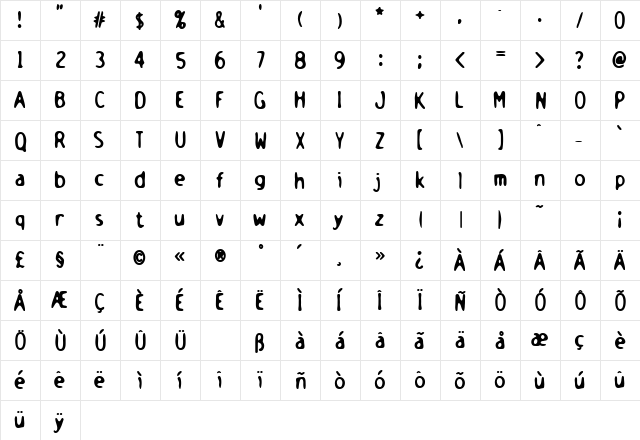
HolsteinBoldkern Regular
Design Context for HolsteinBoldkern Typeface
HolsteinBoldkern offers clean, dependable letterforms without strong stylistic allegiance, making it a practical choice for designers who need flexibility. Its bold stroke weight gives it real presence on the page.